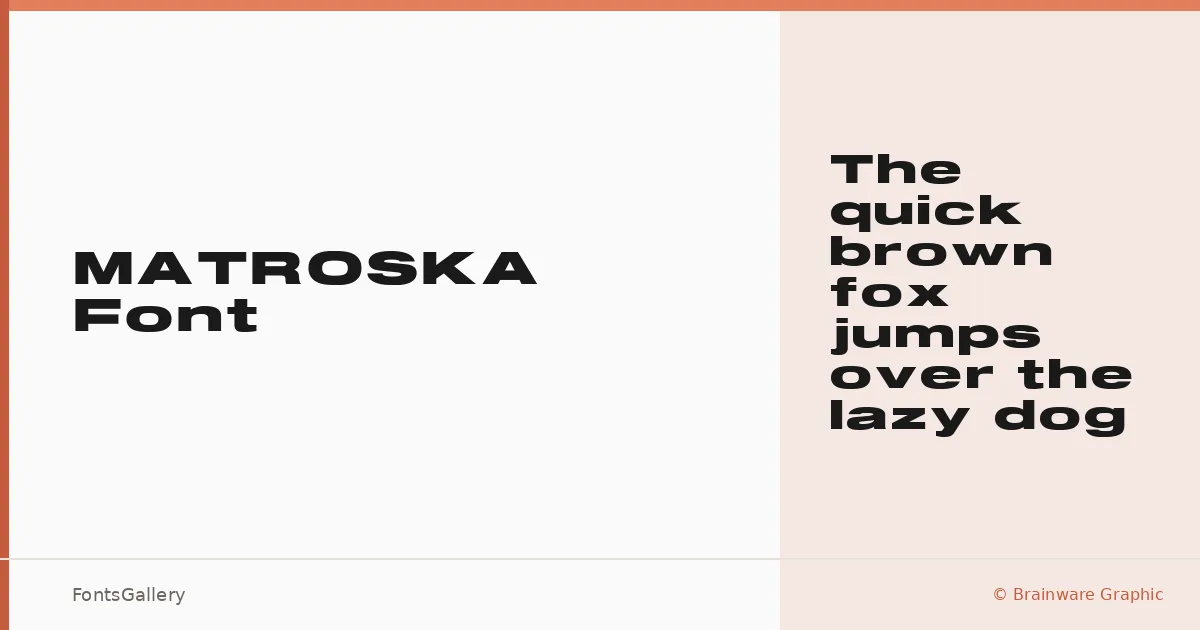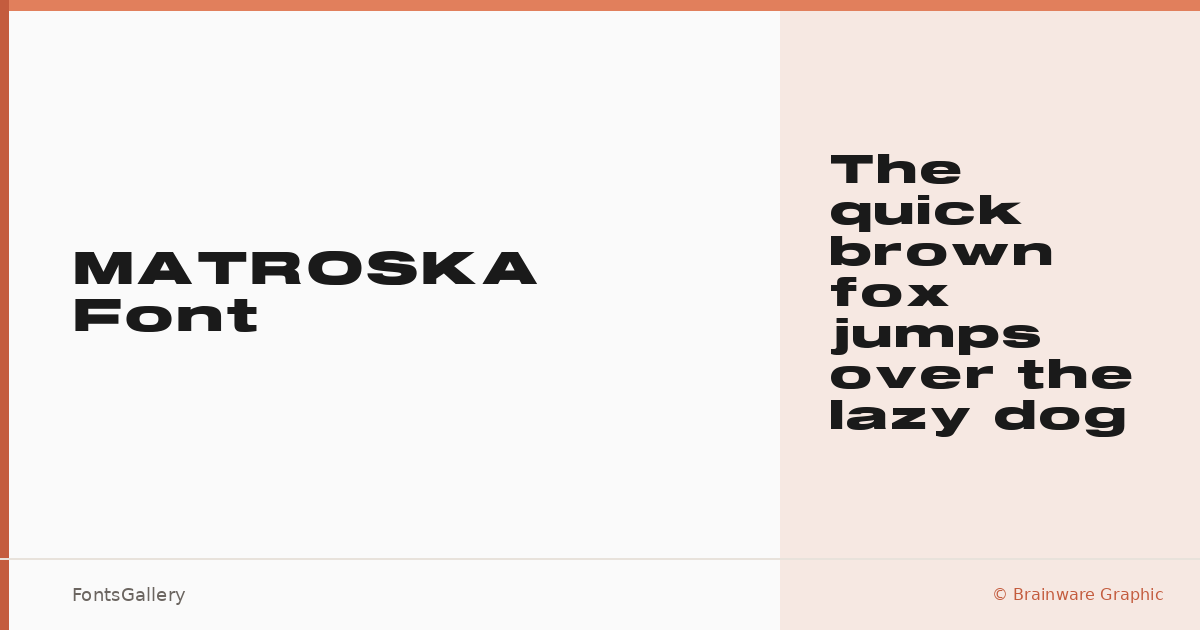
About MATROSKA Font
There is real conviction in this weight — a single cut, Black Bold, that commits fully to mass and presence without hedging toward neutrality. It comes from Muhammad Jauhar Azmi of Brainware Graphic, and it sits squarely in the sans serif category while carrying enough typographic muscle to anchor an entire layout on its own.
The Black Bold cut is built for impact: strokes that push to the outer limit of their weight class while keeping the forms clean and modern rather than decorative. The professional mood comes not from restraint but from consistency — the letterforms hold their structure across both display sizes and tight headline settings. It is available as a TTF file, ready to install and use immediately.
This is a face designed for situations where the headline has to land — posters, branding systems, logo lockups, and advertisement campaigns where Latin-script copy needs to command attention before anything else is read. It pairs well with faces that offer contrast in weight or texture: Canela brings editorial softness, Armelie adds a script counterpoint, 321 Impact offers raw utilitarian energy, ABC Arizona contributes refined structure, and Kactigona introduces geometric personality.